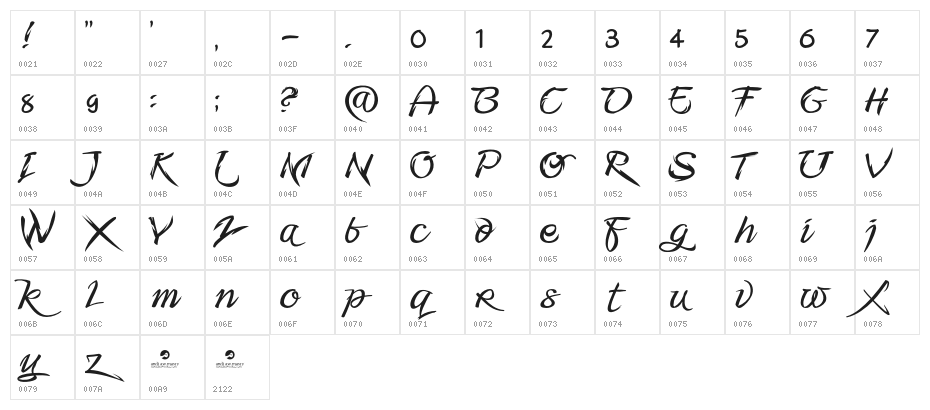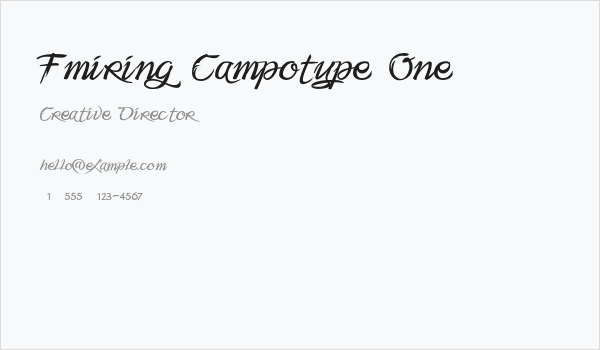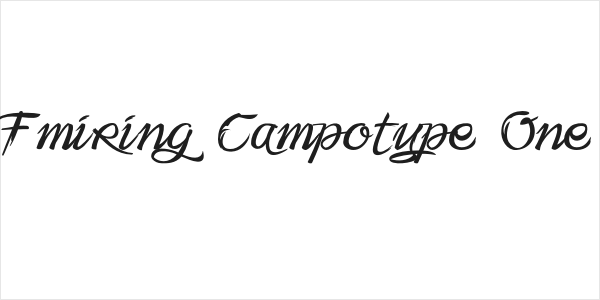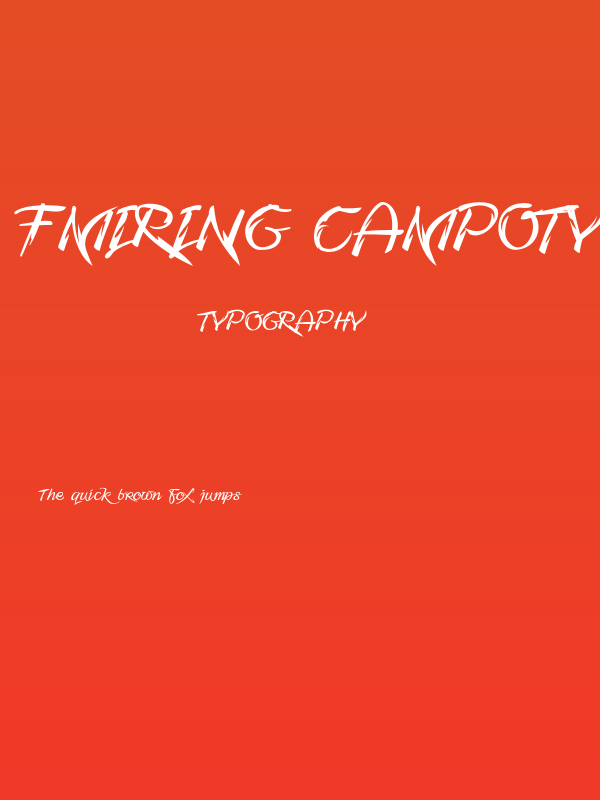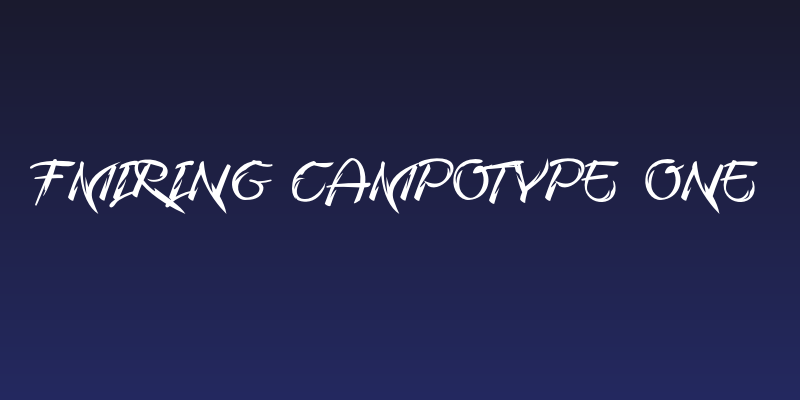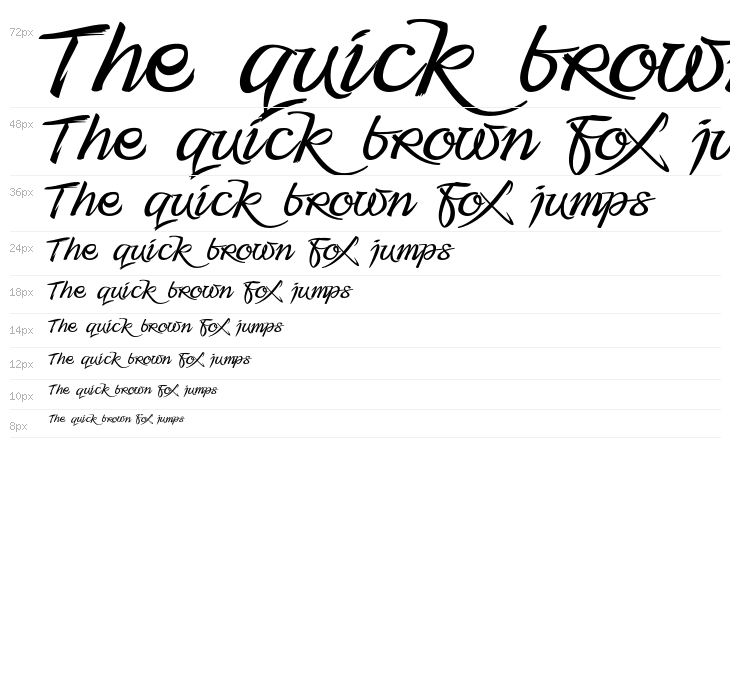
Fmiring Campotype One Font
Fmiring Campotype One Description
This font features a dynamic and energetic script style with sharp, angular strokes and a calligraphic flair. The uppercase letters are bold and dramatic, with sweeping curves and pointed edges that give a sense of movement and intensity. The lowercase letters maintain a similar style, with a slightly more fluid and connected appearance. The numerals are consistent with the overall design, featuring the same sharp angles and bold presence. Special characters are included, matching the font's distinctive style. This font is ideal for projects that require a strong visual impact and a sense of elegance combined with modernity.
Proposed ProjectsIdeal for branding, logos, posters, and invitations where a bold and elegant script is needed.